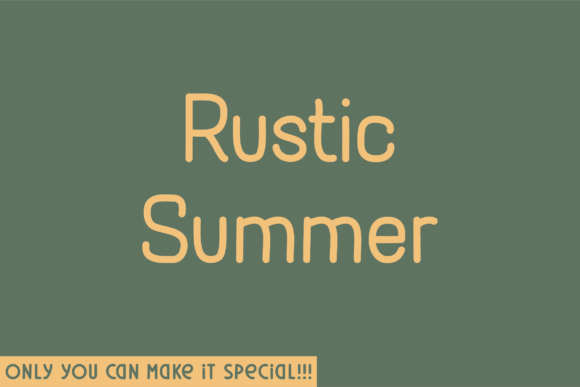
Prepare your projects for the spotlight with Rustic Summer, a captivating sans-serif font designed to turn your creations into visual masterpieces. Its clean and minimalist aesthetic exudes sophistication, making it perfect for a wide range of projects.
Step into a world of endless possibilities as you adorn your book covers, magazines, and social media posts with the charm of Rustic Summer. Let your invitations radiate elegance, leaving a lasting impression on your guests. The versatility of this font knows no bounds, inviting you to explore new creative horizons.
Slip into the rhythm of music with Rustic Summer, the perfect partner for capturing the melodies of your soul. Its graceful lines flow effortlessly, mirroring the movement of flowing notes. Bring your musical dreams to life, creating sheet music that dances before your eyes.
Crafted by Hanna Bie, Rustic Summer is a testament to the power of simplicity and timeless style. Indulge in the beauty of clean typography, where every letter is a work of art.
Embrace Rustic Summer, a font that echoes the warmth of summer days and the crispness of autumn nights. Let its elegant dance ignite your imagination and elevate your designs to new heights.